25 Best Halloween Fonts for Spooky, Scary & Witchy Designs in 2026
Looking for the perfect Halloween fonts for your next spooky project? This curated collection brings together creepy, scary, cute, witchy, retro and monster-inspired typefaces for invitations, Cricut crafts, T-shirts, stickers, posters, social graphics and Halloween decorations.
Halloween is one of the best seasons to experiment with typography. A single font can turn an ordinary phrase into something eerie, mysterious, playful, gothic or completely terrifying.
Whether you are designing a Halloween party invitation, sublimation design, printable sign, sweatshirt, sticker sheet or Pinterest graphic, the right typeface helps establish the mood before anyone even reads the words.
Below you will find 25 hand-picked options covering popular styles including spooky fonts, scary fonts, creepy fonts, witchy fonts, cute Halloween fonts, ghost fonts and retro Halloween lettering.
25 Best Halloween Fonts for Spooky Designs
1. Halloween by Umitype
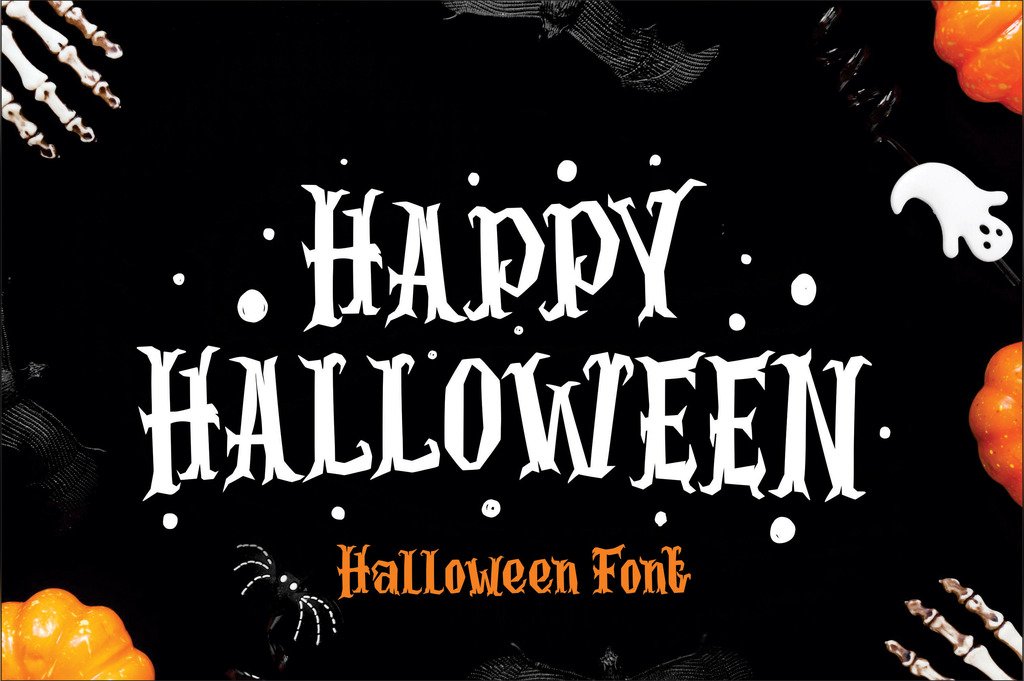
A strong all-around Halloween display font with dramatic letterforms that immediately communicate spooky season. It works especially well when the headline itself needs to become part of the artwork.
Best for: posters, apparel, embroidery and seasonal crafts.
2. Halloween Bone
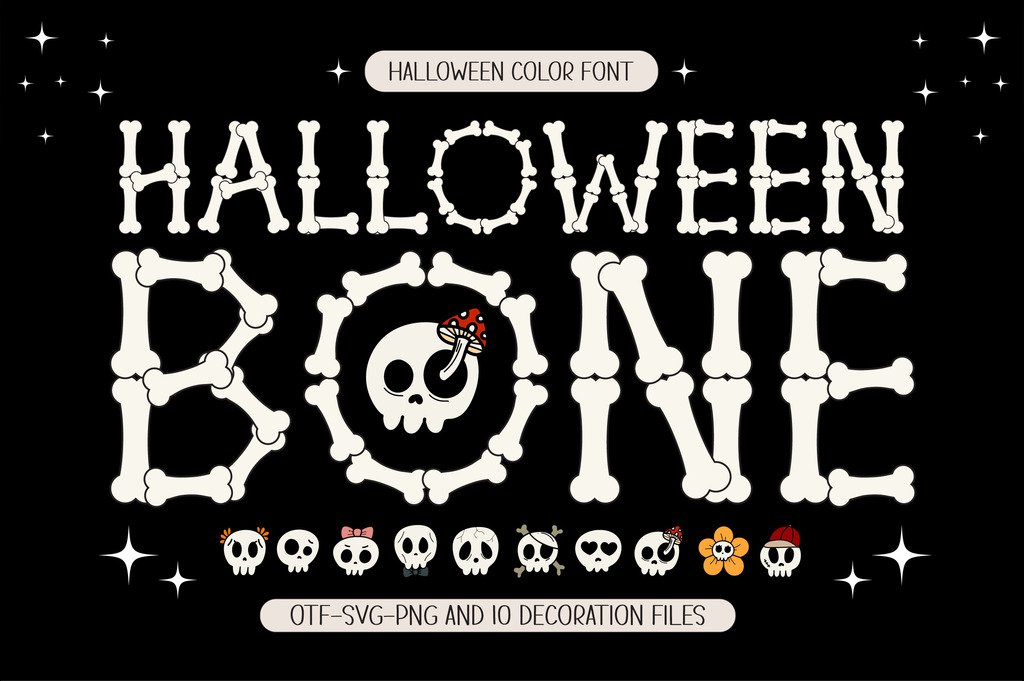
Halloween Bone turns the alphabet into part of the illustration with bone-inspired characters and a playful spooky feel. It is an especially good fit for skeleton, skull and graveyard themes.
Best for: skeleton designs, sublimation, personalized names and crafts.
3. Spooky Halloween
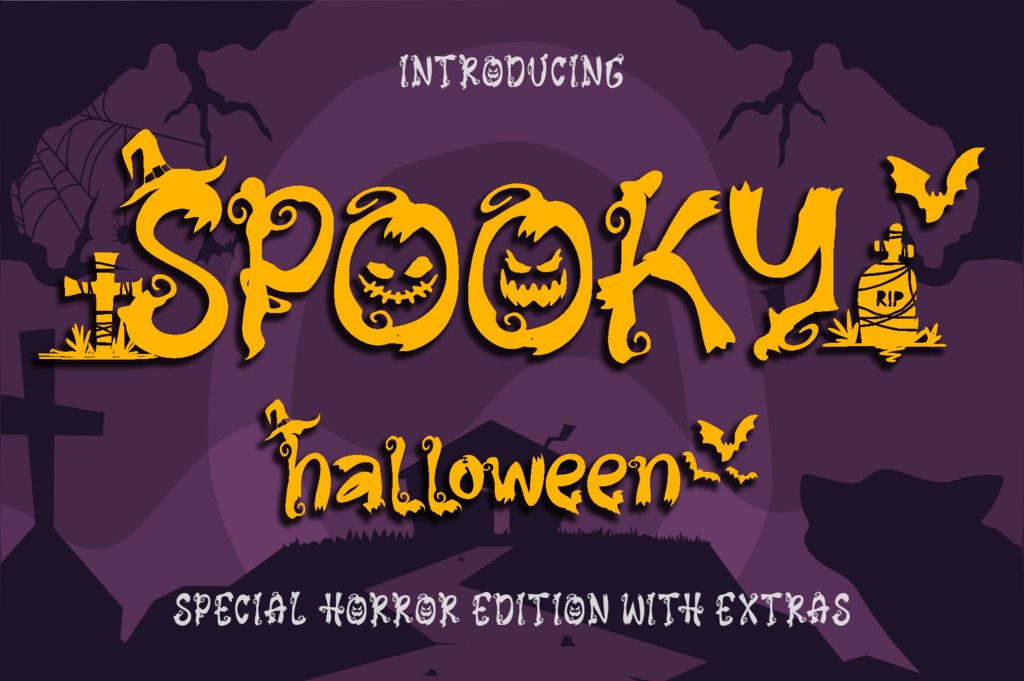
Spooky Halloween balances scary and playful typography. Its decorative style gives short phrases such as Happy Halloween, Trick or Treat and Spooky Season plenty of character without becoming too dark.
Best for: October crafts, invitations and decorative lettering.
4. Scary Spooky
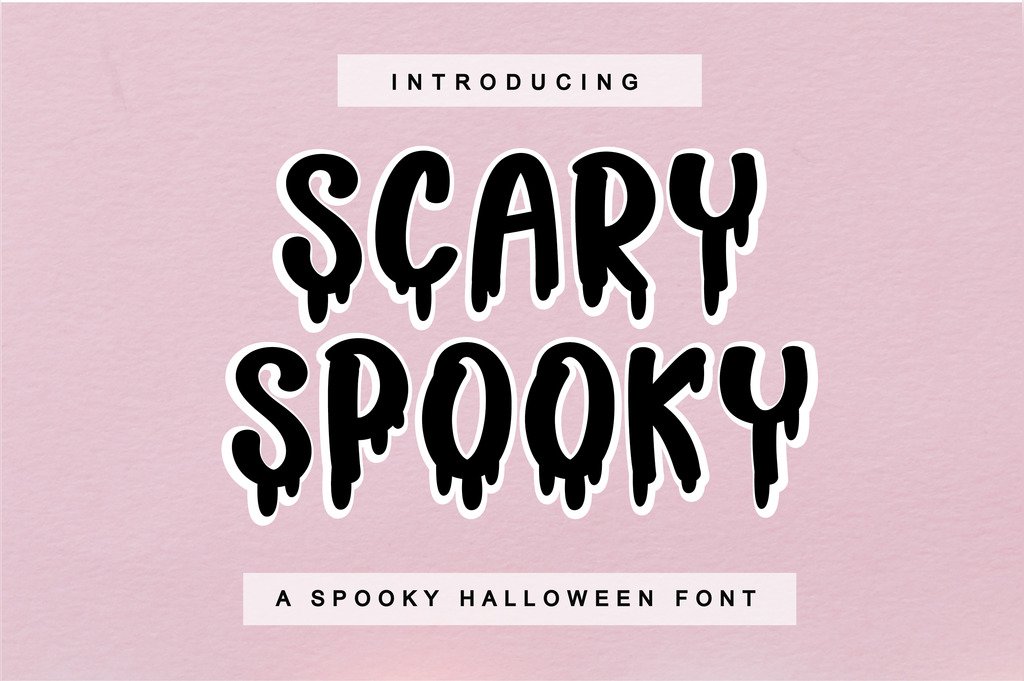
Scary Spooky pushes the mood toward classic horror typography. It is most effective in short headlines where dramatic lettering can remain the main visual element.
Best for: Halloween invitations, web graphics and party posters.
5. Monster Halloween
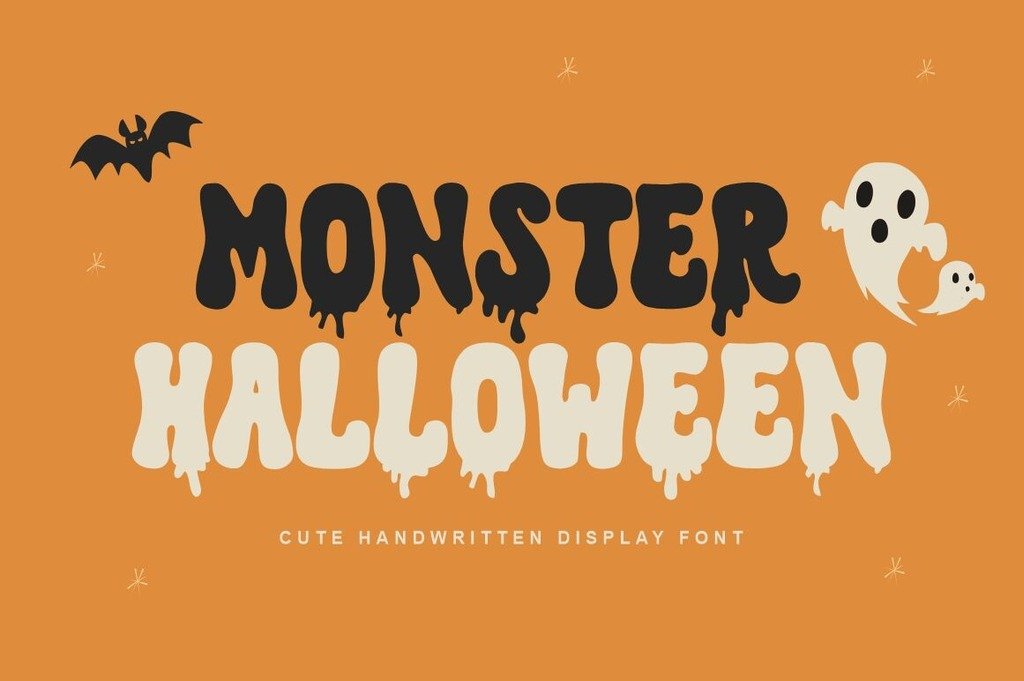
Monster Halloween combines chunky lettering with a dripping spooky style. It feels creepy enough for Halloween while remaining fun and easy to use for craft and merchandise designs.
Best for: logos, headlines, labels, shirts and monster graphics.
6. Halloween Ghost
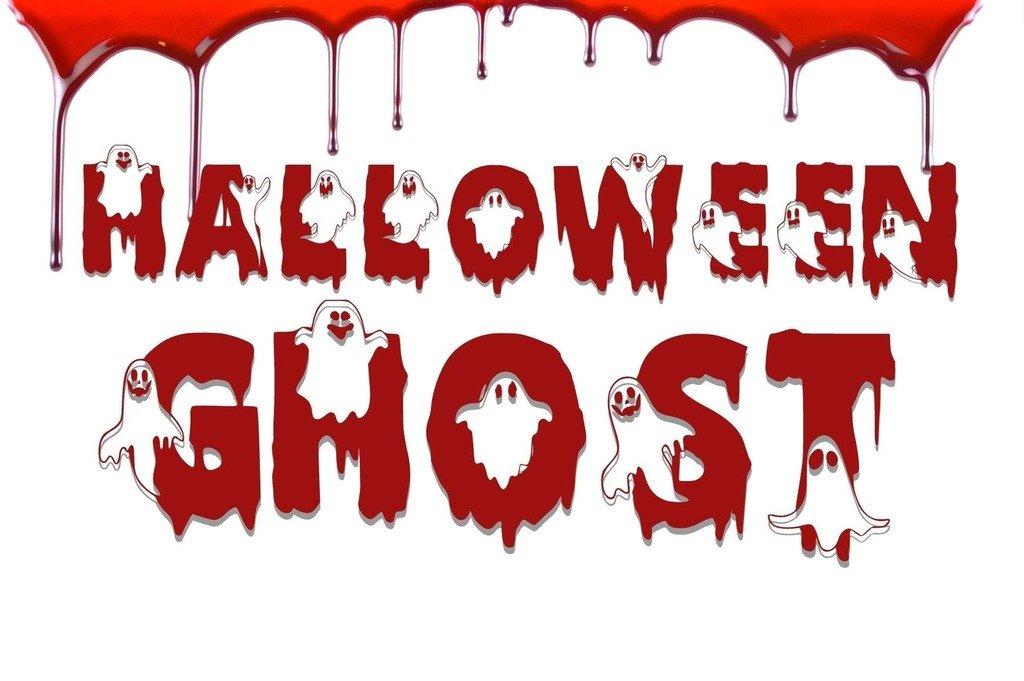
Halloween Ghost is ideal when spooky typography should feel friendly rather than frightening. Drippy characters decorated with cute ghosts make it a natural fit for family-friendly Halloween projects.
Best for: kids’ invitations, classroom projects, stickers and cards.
7. Halloween Script
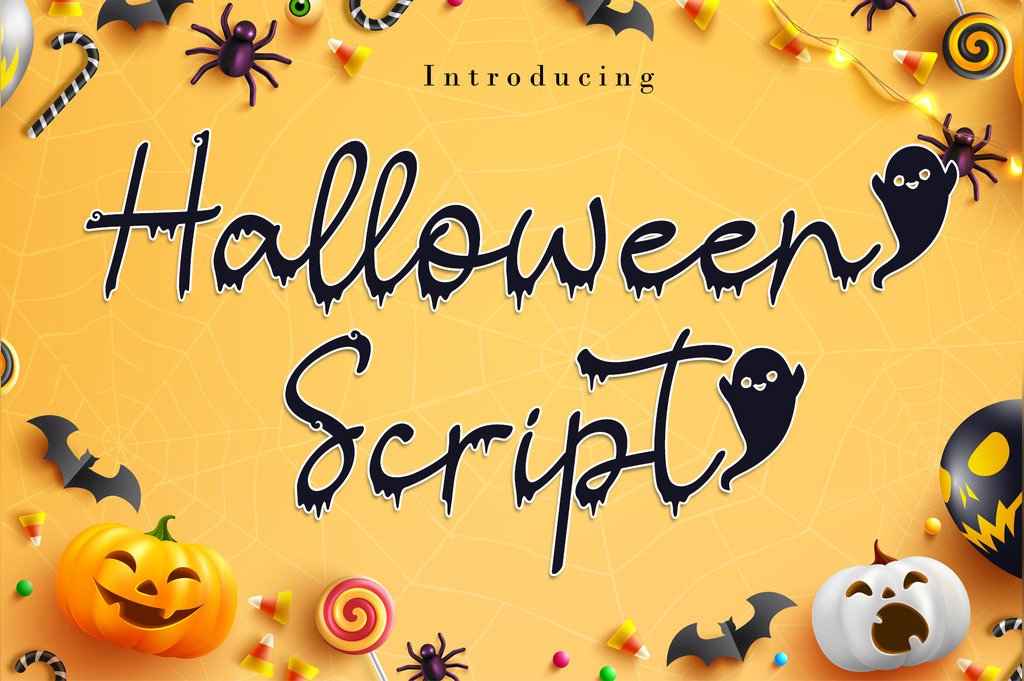
Halloween Script offers a handwritten alternative to heavy horror fonts. It works nicely for seasonal quotes, invitations and layered typography where a softer, more personal look is useful.
Best for: quotes, cards, invitations and handwritten Halloween lettering.
8. Spooky Blood
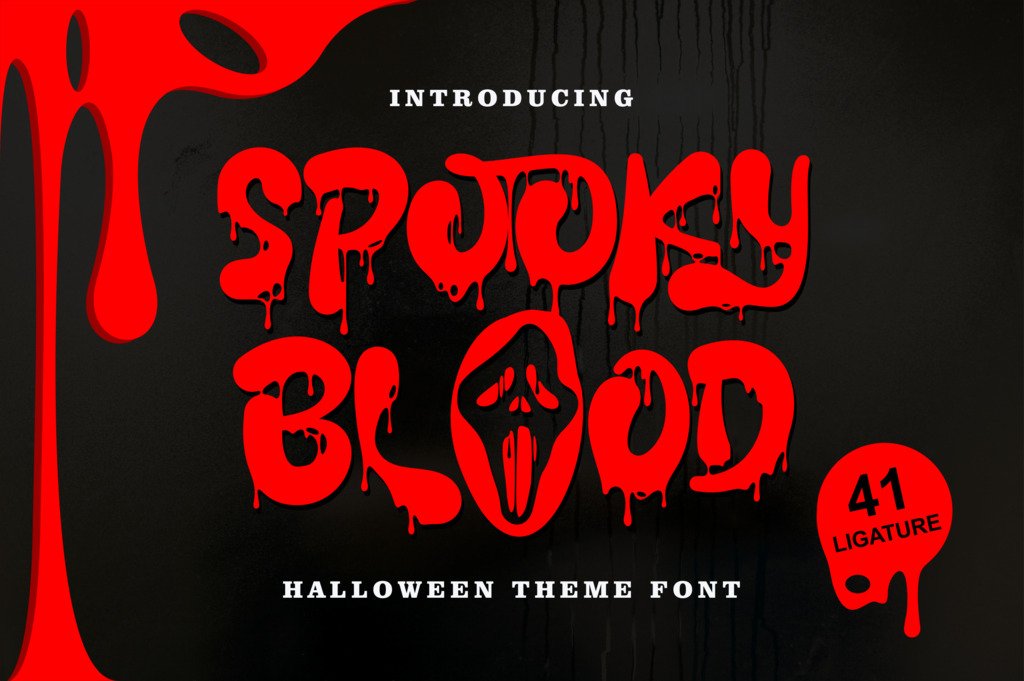
Spooky Blood is a thick dripping display font for projects where subtlety is not the goal. Its bold horror personality can instantly turn a simple headline into a Halloween focal point.
Best for: horror posters, haunted attractions and dramatic titles.
9. Halloween Spooky
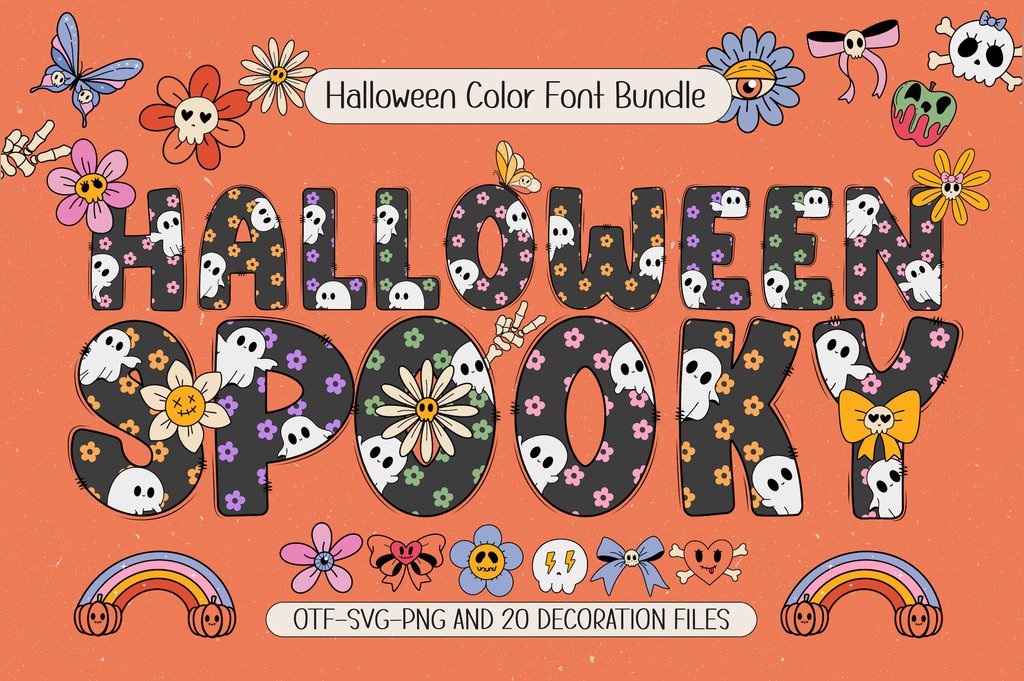
Halloween Spooky mixes the darkness of Halloween with playful ghost-inspired details and colorful seasonal character. It is especially useful for personalized names and DIY projects.
Best for: personalized crafts, sublimation, posters and cute spooky projects.
10. Cute Halloween
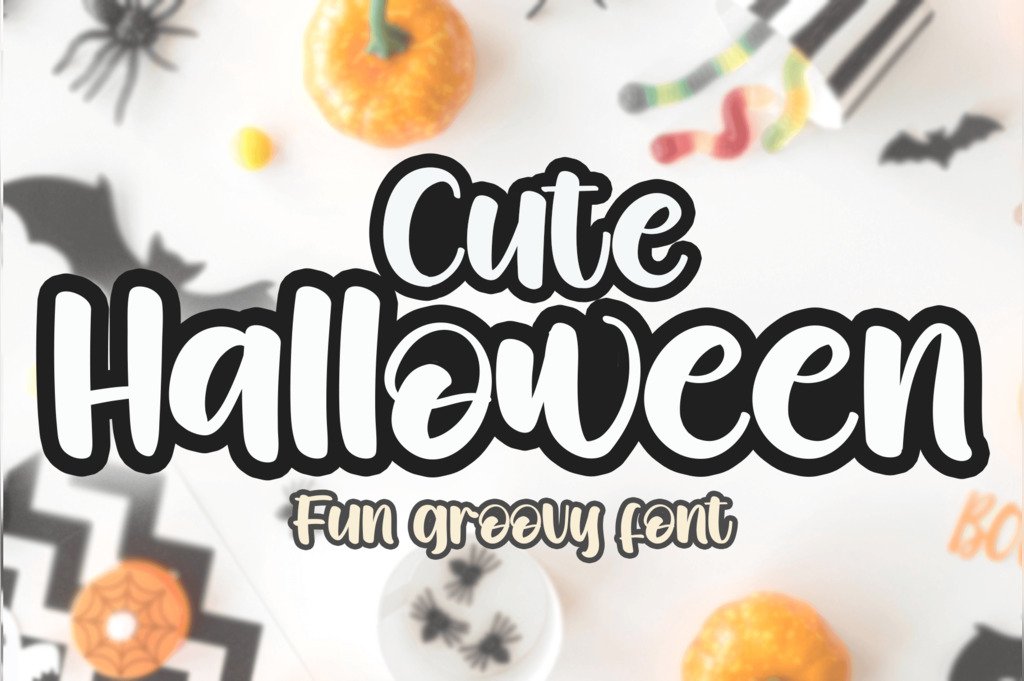
Cute Halloween brings a softer retro personality to spooky season. Pair it with lavender, cream, dusty orange, pink or muted black for a trendy cute-spooky aesthetic.
Best for: T-shirts, tote bags, stickers and groovy Halloween graphics.
11. Haunted Halloween
Haunted Halloween is a bold dripping display font for projects that need a darker atmosphere and strong headline impact. It suits haunted-house promotions and horror-inspired seasonal graphics particularly well.
Best for: haunted house posters, signage, shirts and scary event graphics.
12. Halloween Witch
Halloween Witch adds whimsical witch hats and broomstick-inspired details to selected characters. It pairs naturally with potions, moons, cauldrons and other magical Halloween illustrations.
Best for: witch party invitations, posters, signs and themed decor.
13. Spooky Witchy
Spooky Witchy sits between Halloween lettering and the broader mystical aesthetic. That makes it useful for celestial, gothic and witch-inspired projects even beyond October.
Best for: mystical graphics, witchy apparel and spooky branding.
Match the typography to the audience and project, and do not be afraid to combine a decorative Halloween headline with a clean supporting font. That simple pairing is often enough to create a polished seasonal design.